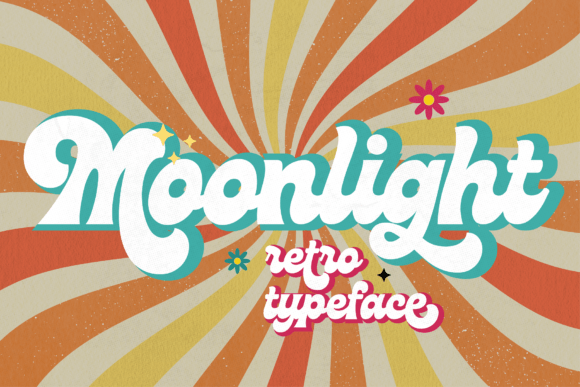
Are you a fan of vintage designs and retro aesthetics? If yes, then you'll love our newest addition to the collection – Moonlight Font!
This unique display font is perfect for anyone looking to add a touch of old-school charm to their designs. Inspired by the groovy disco era of the 1970s, Moonlight's script lettering has a smooth and flowing appearance that's sure to capture the attention of your audience.
Moonlight is not just visually appealing but also versatile. This multilingual font has a range of gorgeous ligatures that are perfect for creating unique and eye-catching designs. From branding to stickers, packaging to posters, magazines to books, and even social media platforms like YouTube and Instagram – the possibilities are endless.
This font is created by HipFonts and is designed to look like fonts for old books. It is perfect for creating an antique feel in any design, including apparel and web design. It is a font that can be used for almost any project that requires a retro touch.